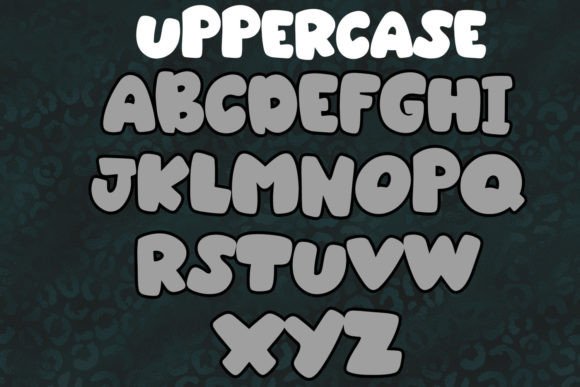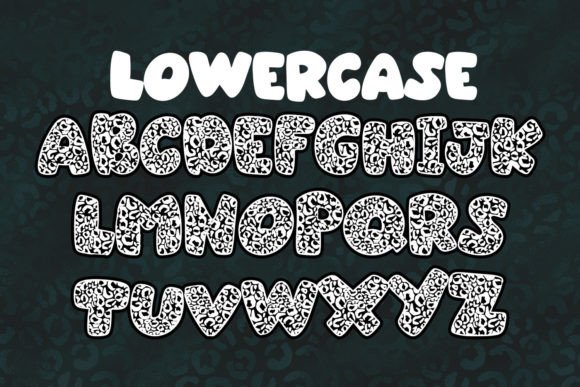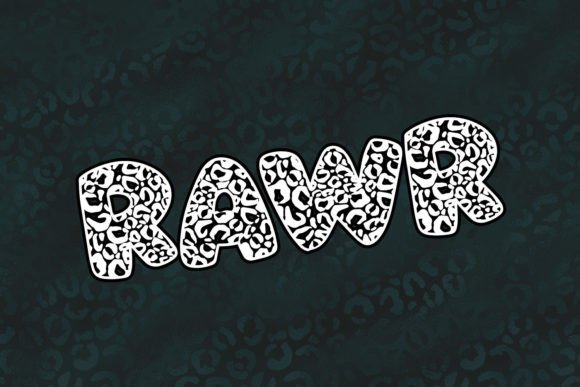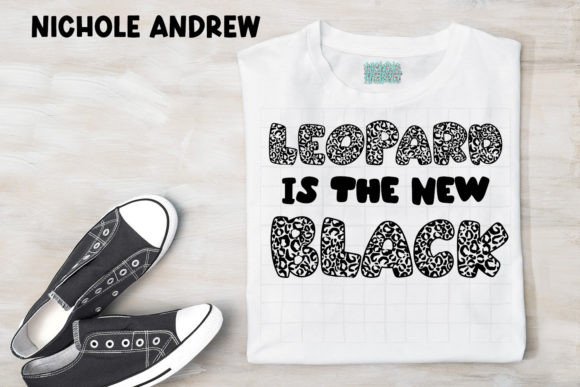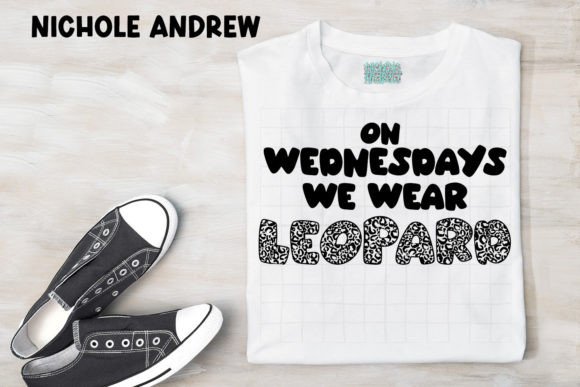
Introduction to Leopard Love Font Font
Fonts play a crucial role in design, and the Leopard Love Font font is a typeface that brings both character and versatility to any project. Whether you’re working on a branding project, a website, or a print design, the Leopard Love Font font offers a unique style that can elevate your work.
Leopard Love is a colorful and memorable display font.
The font is featuring puffy and expanded letters which will make your project look out of this world .
Key Features of Leopard Love Font Font
Why Choose Leopard Love Font Font?
The Leopard Love Font font is more than just a typeface – it’s a design tool that helps you communicate your message with style and clarity. Its unique character set and versatile design make it suitable for a wide range of applications, from elegant invitations to bold headlines.
With its carefully crafted letterforms and balanced proportions, the Leopard Love Font font ensures readability and visual appeal across all mediums.
What makes Leopard Love Font font special?
The Leopard Love Font font stands out with its unique design, exceptional readability, and versatility across various design applications.